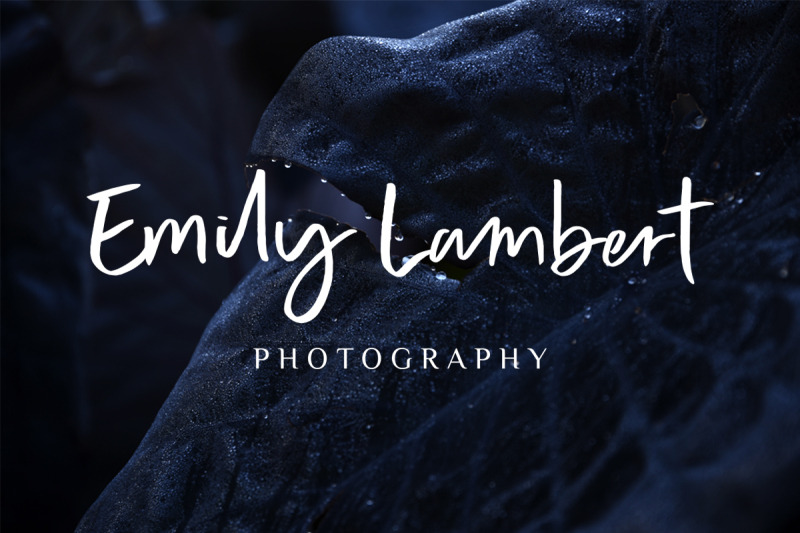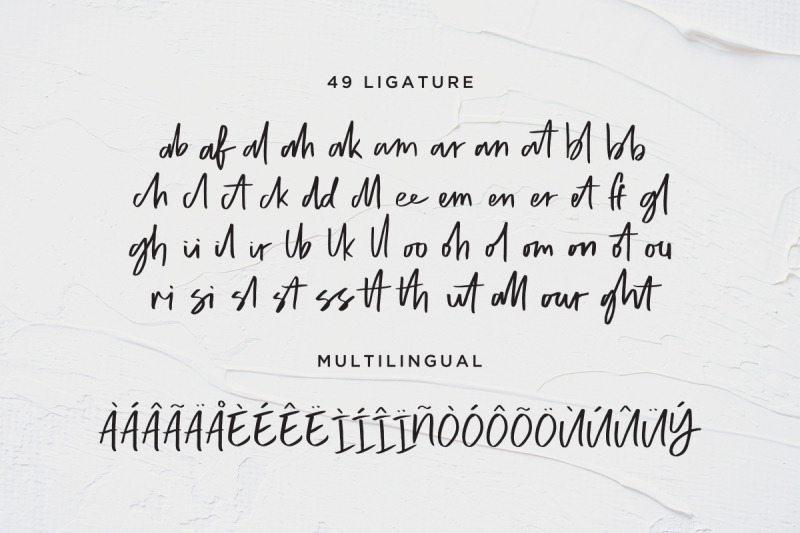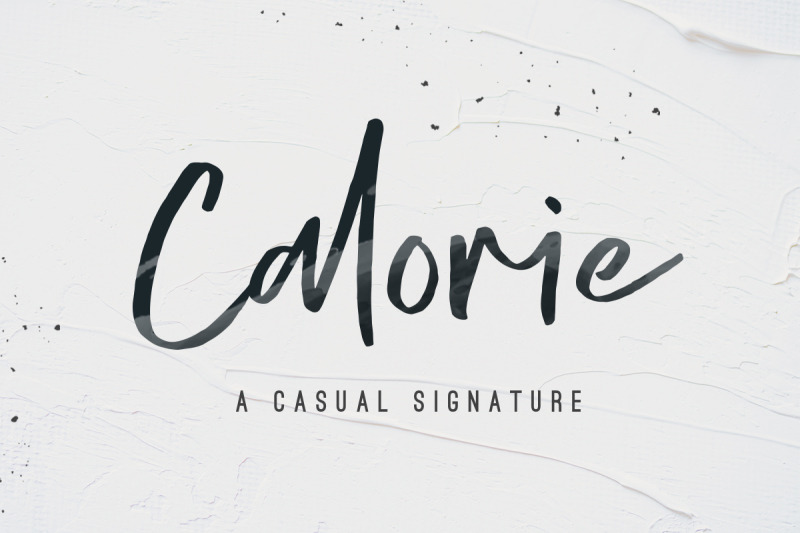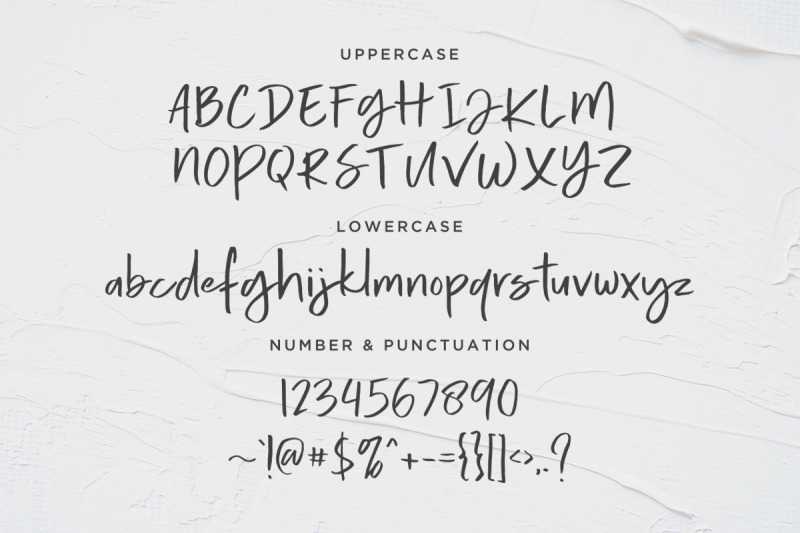
Freebie Wednesday: Calorie Font.
Calorie is a rustic textured script that works great for logos, branding, quotes, social media, and even lettered wrapping paper! This font comes in OTF and TTF formats!